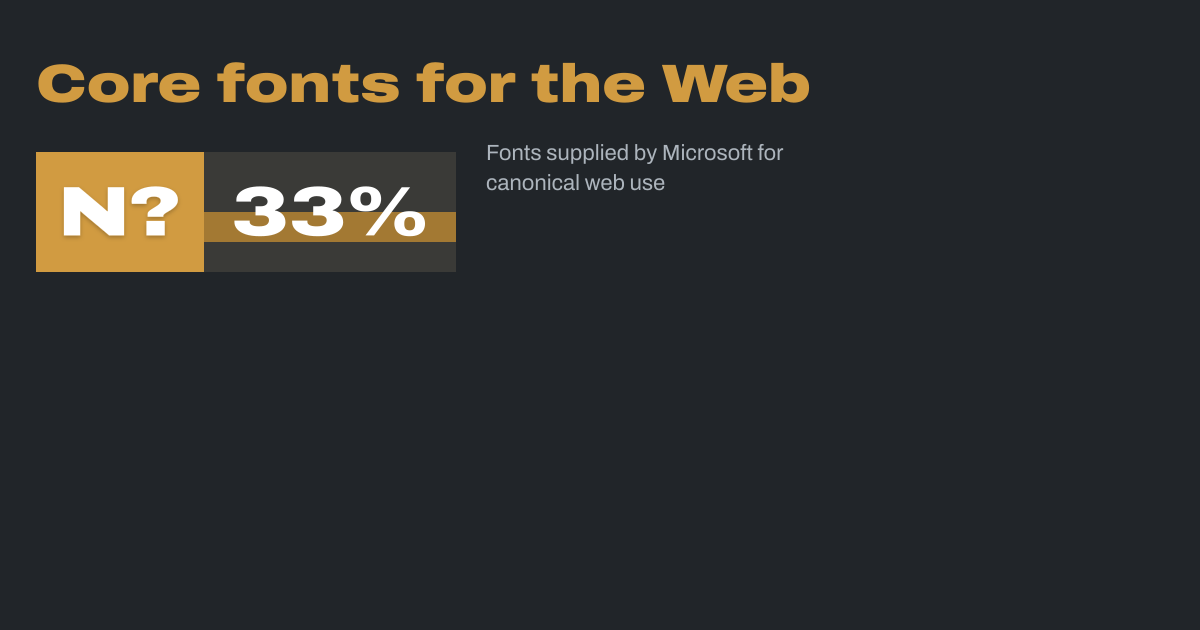
Core fonts for the Web was a project started by Microsoft in 1996 to create a standard pack of fonts for the World Wide Web. It included the proprietary fonts Andalé Mono, Arial, Arial Black, Comic Sans MS, Courier New, Georgia, Impact, Times New Roman, Trebuchet MS, Verdana and Webdings, all of them in TrueType font format packaged in...